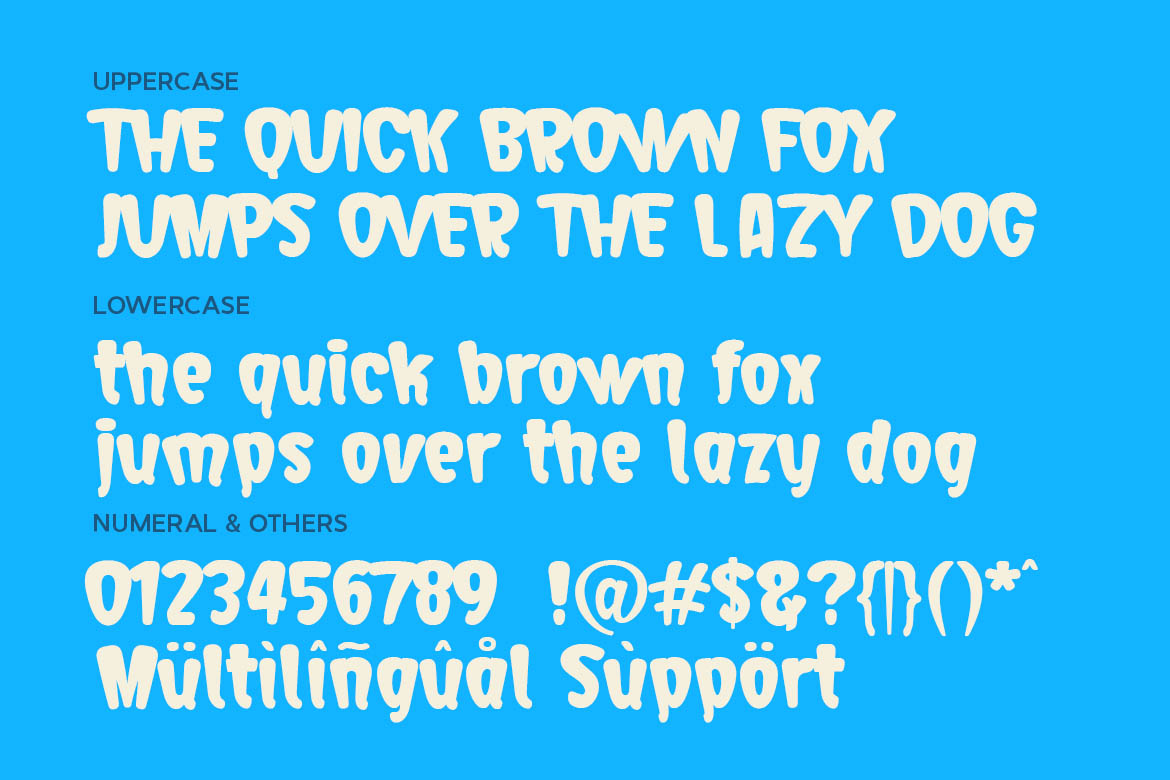
Tweet Toon is a super fun and bubbly cartoon font designed to bring a burst of joy and playfulness to any project. With its chubby letterforms and cheerful bounce, this font is perfect for children’s books, YouTube thumbnails, toy packaging, social media graphics, comic titles, and educational content.
Its bold and rounded shapes give it a friendly personality that appeals to both kids and playful brand identities. Tweet Toon is now available on PrimeFont, your home for creative and unique fonts that stand out.